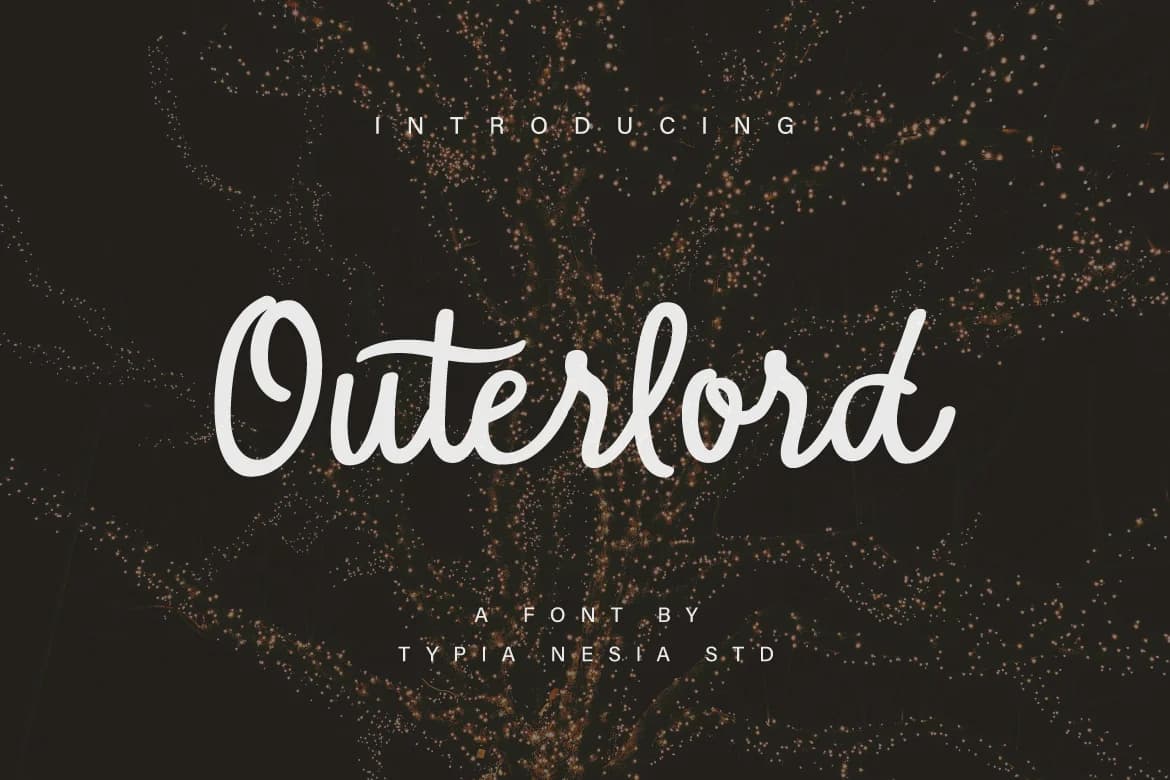
Outerlord Font by Typia Nesia is a flowing handwritten script that captures genuine warmth through organic letterforms and natural pen strokes. The typeface combines the personal touch of hand-lettering with clean legibility, making it work seamlessly across both intimate designs and larger brand applications. Its unhurried, natural rhythm gives designs an approachable confidence that feels distinctly human and inviting. This script excels in situations where authenticity and personality matter most. Wedding invitation suites benefit tremendously from its elegant, organic flow, while greeting card designs gain instant character and personality from its approachable letterforms. It performs equally well for custom apparel labeling, boutique skincare packaging, and hand-lettered quote graphics where individual personality drives the visual impact and emotional resonance. The typeface strikes a careful balance, distinctive enough to stand apart from generic digital scripts, yet readable enough for professional applications and long-form layouts. Its multi-language support and extended character set make it suitable for international branding work, ensuring visual consistency across diverse markets and languages. Whether you're layering it into packaging layouts, positioning it as headline typography, or using it as the foundation of a standalone artwork, Outerlord maintains its handcrafted appeal and visual integrity. Find Outerlord Font on Creative Fabrica and add genuine character to your next creative project.
Outerlord Font is a script font that shines as a display or heading face. Pair it with a clean sans-serif or serif font for body text β the contrast creates a clear hierarchy while the two styles stay balanced and easy to read.
Outerlord Font
by Typia Nesia